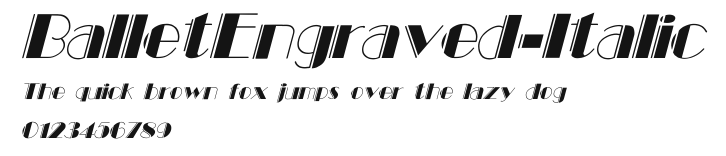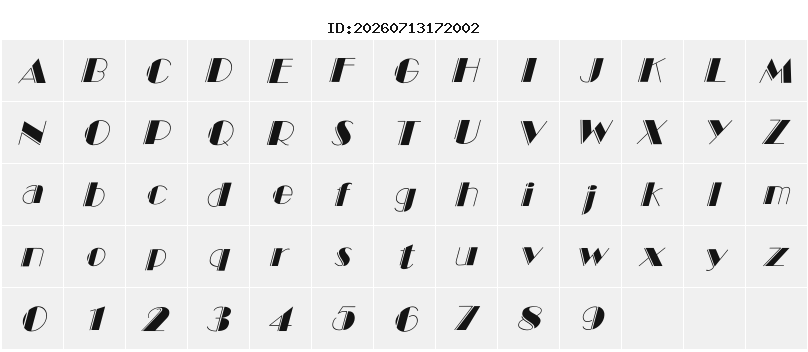
• Font Name: BalletEngraved-Italic
• Font ID: BalletEngraved Italic
• Full Font Name: BalletEngraved Italic
• PostScript Name: BalletEngraved-Italic
About BalletEngraved-Italic.ttf
BalletEngraved-Italic.ttf is a modern, elegant sans-serif font designed for ultimate readability and visual harmony. Perfect for branding, headlines, web design, and print materials.